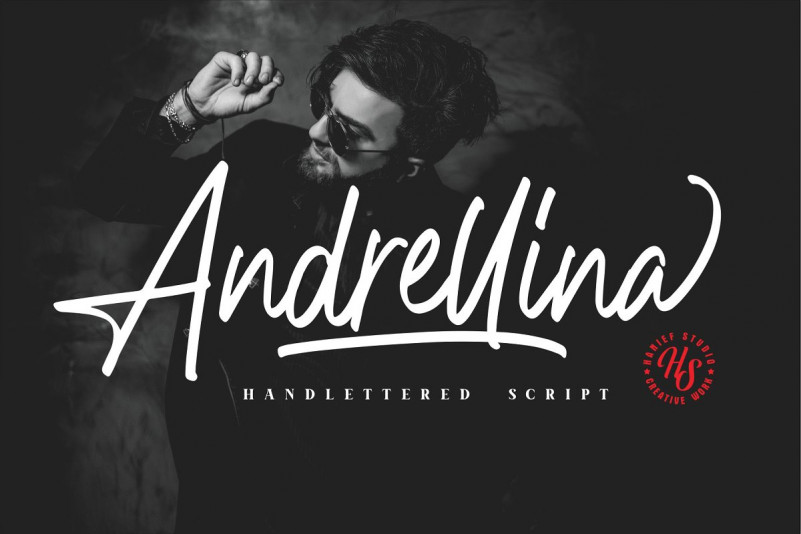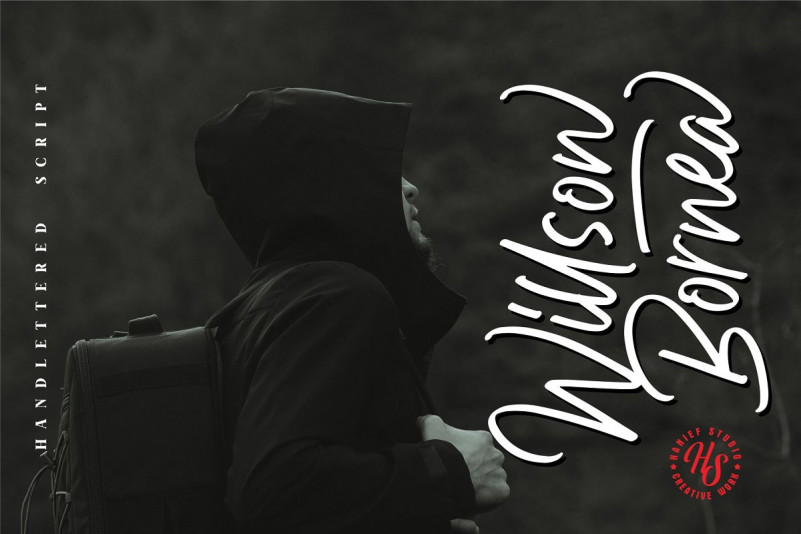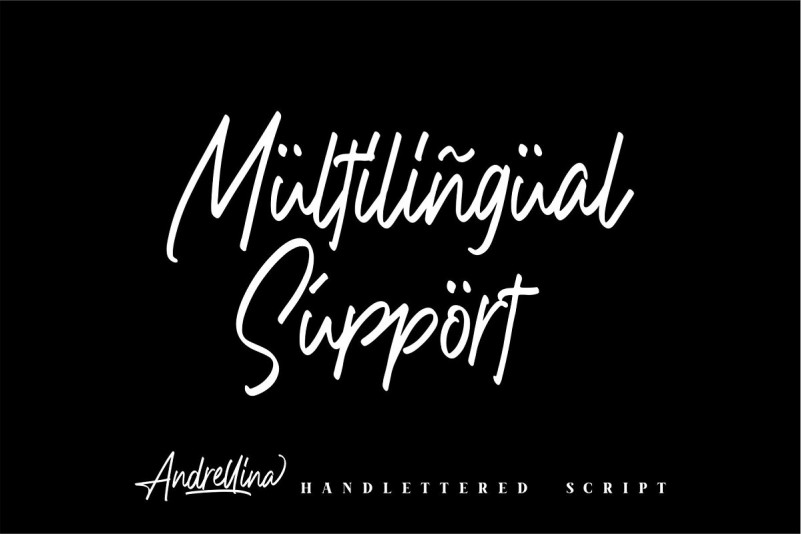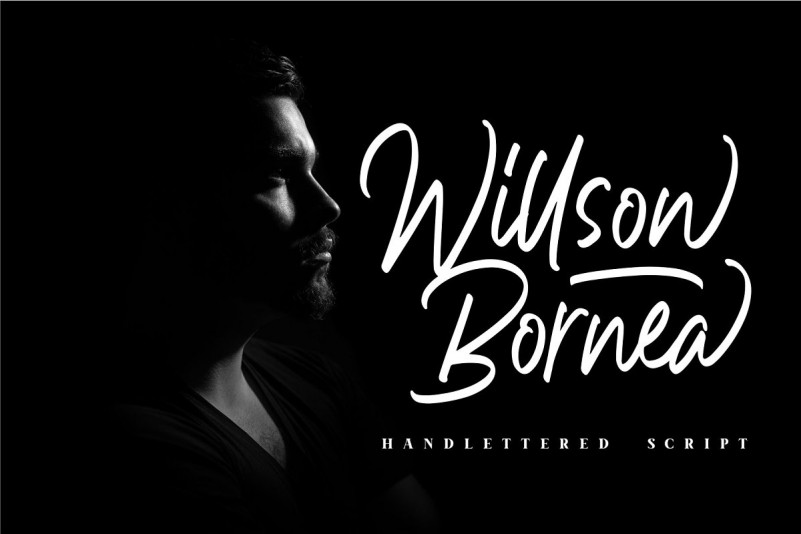
Andrellina Signature Font
Hi, I am proudly present new cute and beautiful handwritten script. A signature handwritten font. This dreamy font with its texture and elegant lines will add a personalised look to your work. Introducing Andrellina Font. It’s, every single letter has been carefully crafted to make your text look beautiful. With a modern script style this font will be perfect for many different projects ex: photography, watermark, quotes, web design, blog header, poster, wedding, branding, logo, fashion, apparel, letter, invitation, stationery, etc.